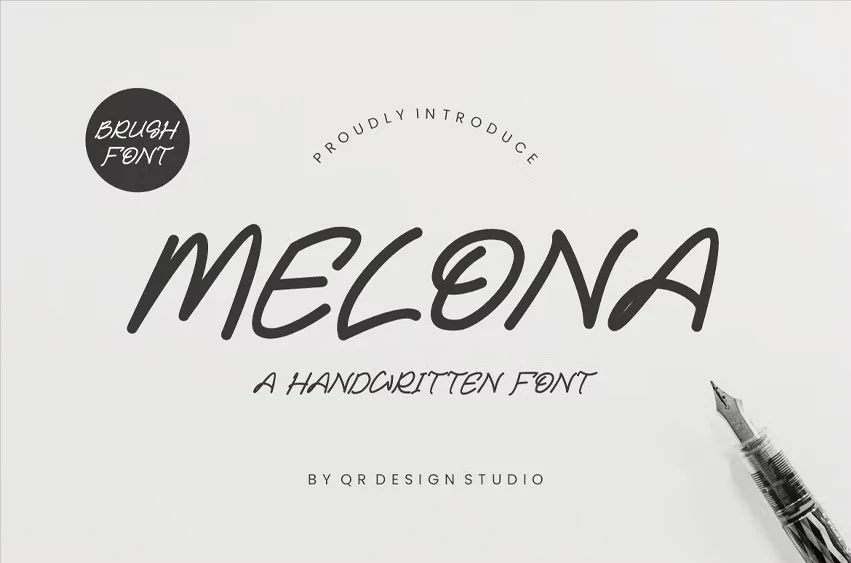
Melona Font
Melona Font Marker Font is a handwritten and authentic display font. The font is suitable for any branding project like poster, logo, sport, and many more. Outstanding in a wide range of contexts.